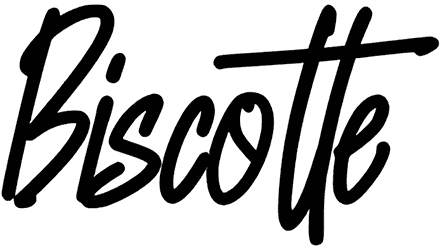
Biscotte Font
Biscotte is a beautiful and elegant way to add sophistication and elegance to any design. This handwritten font has smooth curves and broken lines that are the author’s soul throughout the page.
You can use this script font for wedding invitations, greeting cards, and other intimate occasions that require elegance. Also, more casual environments like social media posts and creative business branding allow this font to shine, even without some numbers.